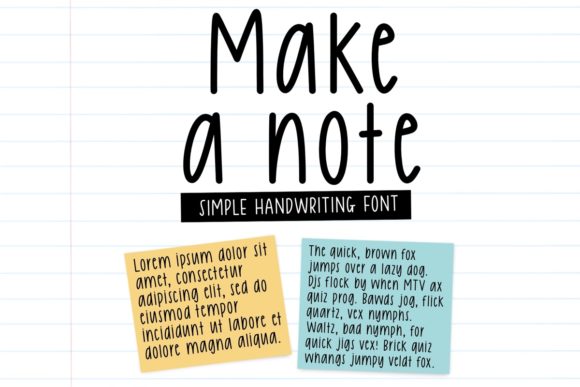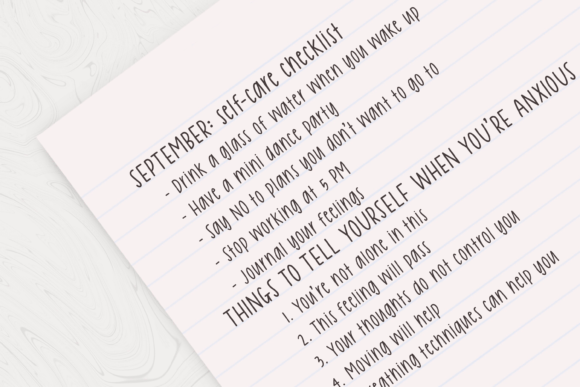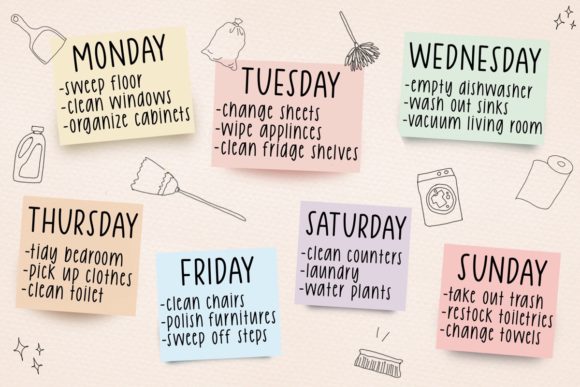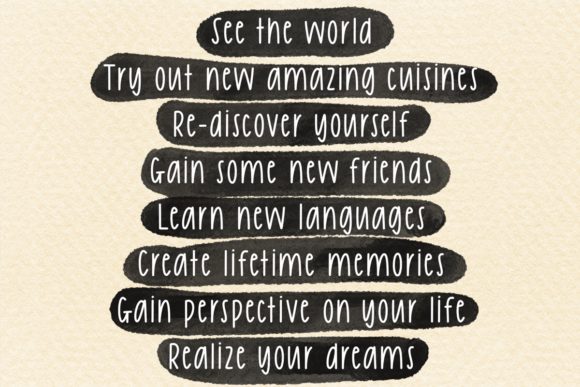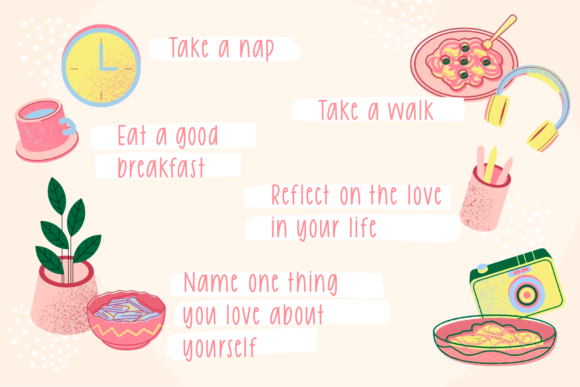
About Make a Note Font
Make a Note is a font that exudes classic elegance in its beautiful handwritten style. Its timeless appeal makes it a versatile choice for a wide range of applications, from greeting cards to kids’ crafts, and everything in between. This script font is guaranteed to add a sweet and charming touch to your next design, no matter the theme or purpose.
With Make a Note, you have a font that brings a sense of sophistication and grace to your designs. Its flowing and well-balanced letters create a captivating visual experience that resonates with your audience.
The classic handwritten style of Make a Note adds an authentic and personal touch, making your designs feel warm and welcoming. Whether you’re crafting heartfelt messages, creating playful kids’ crafts, or designing thoughtful greeting cards, Make a Note infuses each piece with a touch of artistry and emotion.
Embrace the versatility of Make a Note and experience how it elevates your designs to new levels of beauty and visual appeal. Its classic charm allows it to adapt seamlessly to various design contexts, making it an essential tool in your creative arsenal.
Discover the joy of using Make a Note as your go-to font for a wide range of design projects. Let its classic elegance be the key to unlocking your creativity and bringing a sweet and charming touch to your work.
Whether you’re designing for personal projects or professional endeavors, Make a Note is the font that adds that extra touch of refinement and sweetness to your creations. Embrace the timeless beauty of Make a Note and let it be the font that sparks your inspiration and brings a classic and delightful touch to your next design. Experience the magic of Make a Note and witness how it enhances the beauty and impact of your projects, making them truly special and memorable.